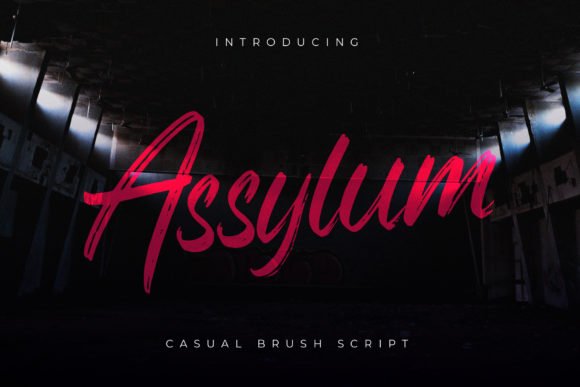
Introduction to Assylum Font
Assylum is a timeless and flowing handwritten font.
Created with the help of an outstanding brush pen, this font was masterfully designed to become a true favorite Add it to your creative ideas and notice how it makes them stand out.
Assylum Font offers exceptional quality and versatility, making it a valuable addition to your design toolkit. Whether you’re creating for personal projects or commercial use, Assylum Font delivers professional results.